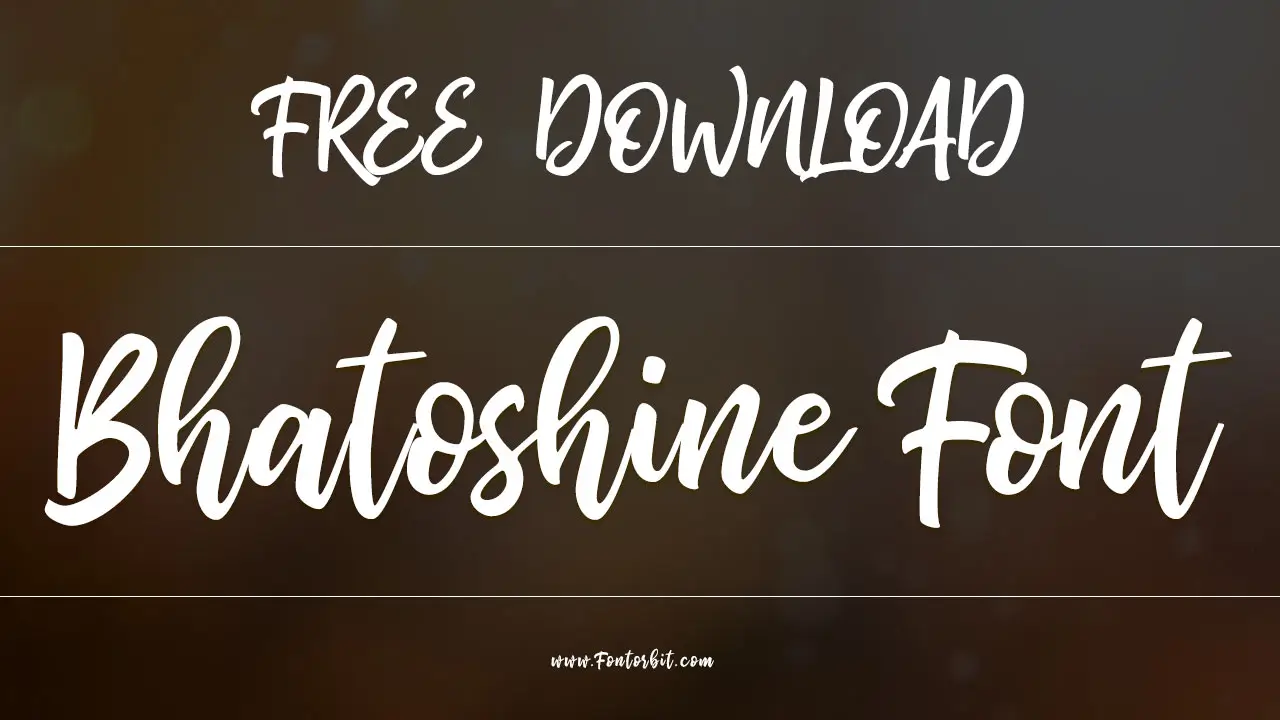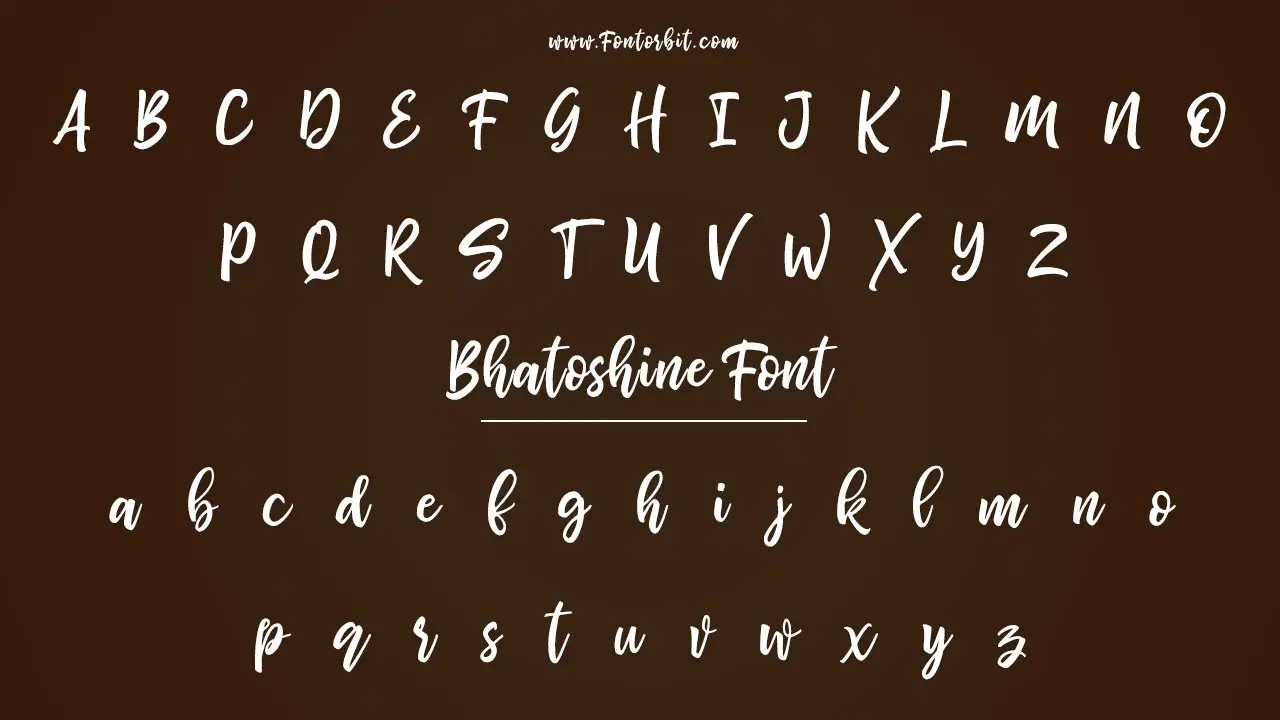
Bhatoshine Font, designed by Typia Nesia, is a premium script font known for its elegant and artistic brush strokes. This font family features two hand-brushed fonts—Bhatoshine Regular and Bhatoshine Caps—making it a fantastic choice for a wide range of design projects, from branding to modern invitation designs. It provides beautiful typography with a handcrafted feel, making your work stand out.
Bhatoshine Font Family
- Bhatoshine Regular – Smooth, elegant script font
- Bhatoshine Caps – Stylish uppercase font for emphasis
- Swash and Doodle Extras – Decorative elements for added flair
Key Features Of Bhatoshine Font
- Two hand-brushed fonts that work together effortlessly
- Works well for branding, logos, printed materials, and invitations
- Supports a wide range of design projects
- Features a detailed character map for customization
Where To Use Bhatoshine Font
- Branding & Logos – Ideal for companies and personal brands
- Modern Invitations – Perfect for wedding and event invites
- Web & Email Templates – Enhances visual appeal online
- Printed Materials – Great for posters, brochures, and business cards
- Custom Printables – Works well on mugs, pillows, and T-shirts
Comparison
| Feature | Bhatoshine Regular | Bhatoshine Caps | Swash & Doodle |
|---|---|---|---|
| Style | Hand-brushed script | Bold uppercase | Decorative extras |
| Best For | Elegant text & body | Headlines & emphasis | Flourishes & accents |
3.Does Bhatoshine Font Support Multiple Languages?
Yes, it includes multilingual support and a detailed character map.
5.How Does This Font Enhance Printed Materials?
Its hand-brushed look and stylish typography make it ideal for posters, flyers, and more.
7.Can I Customize The Bhatoshine Font?
Yes! Bhatoshine Regular and Bhatoshine Caps allow flexibility, and extras like swashes provide even more customization options.